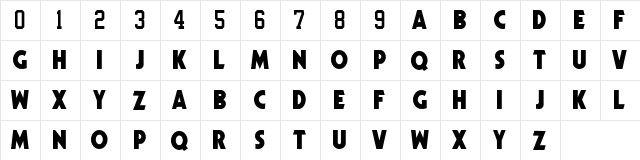
NHL Toronto Regular
Design Context for NHL Toronto Typeface
NHL Toronto takes a measured approach to typography — its balanced proportions and neutral character make it a reliable workhorse for both digital and print work.